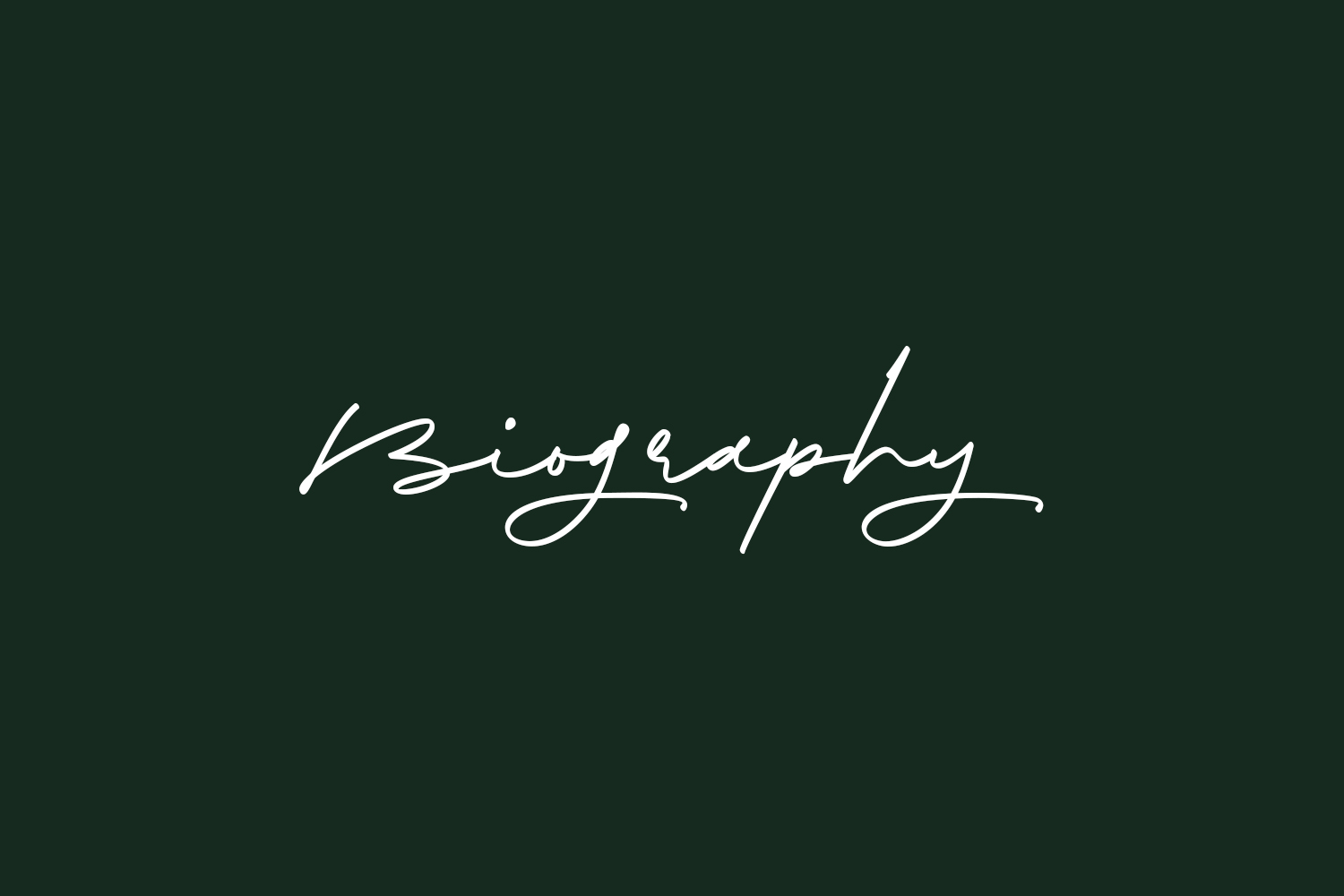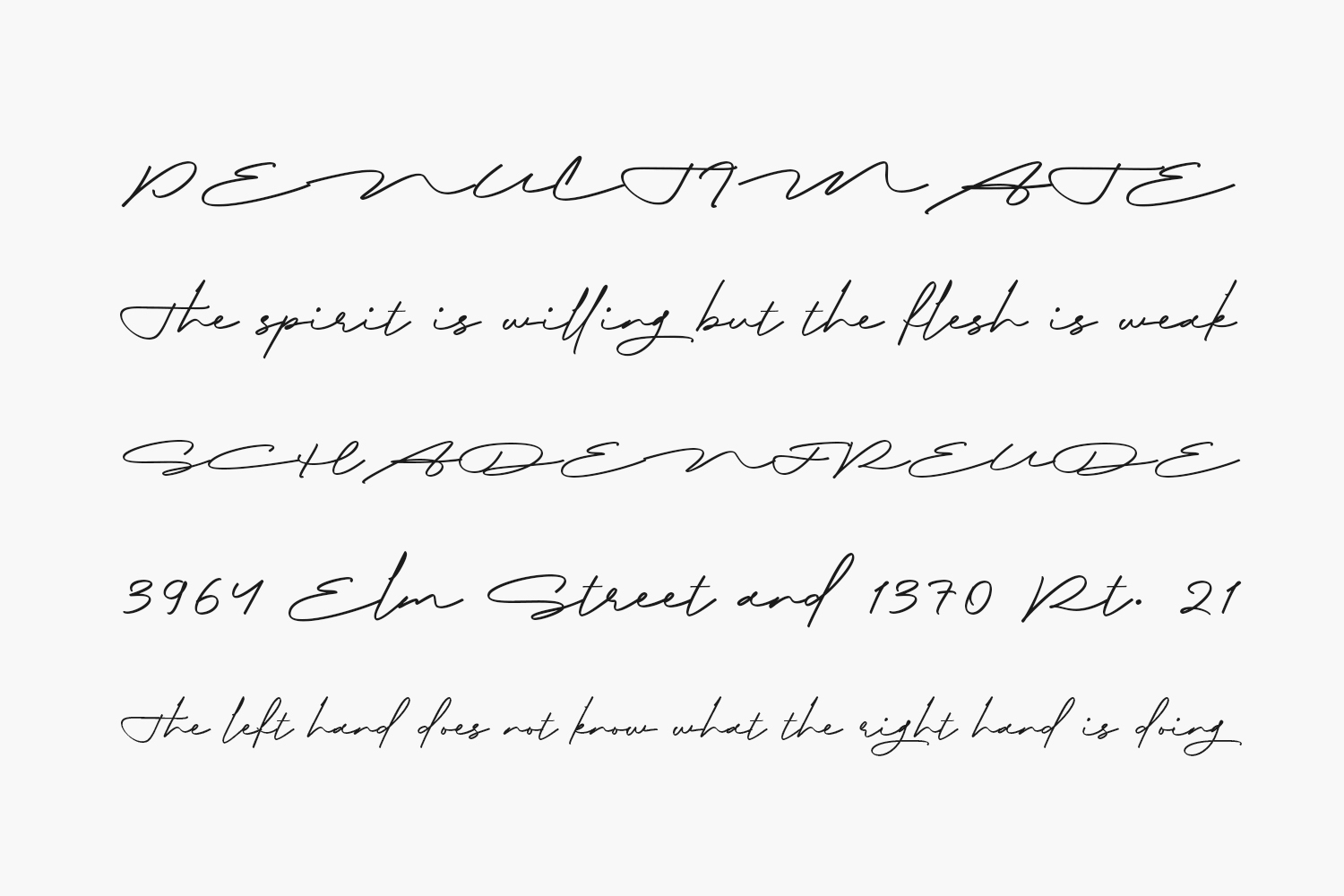
Biography Free Font Family is an excellent choice for your branding endeavors, logos, wedding designs, social media posts, advertising materials, product packaging, design projects, labels, photography, watermarks, invitations, stationery, and any project that craves a touch of elegant handwriting. Biography Free Font Family is free for personal use only. Please purchase the full version for commercial use.
Biography Regular The quick brown fox jumps over the lazy dog
Biography Ink The quick brown fox jumps over the lazy dog